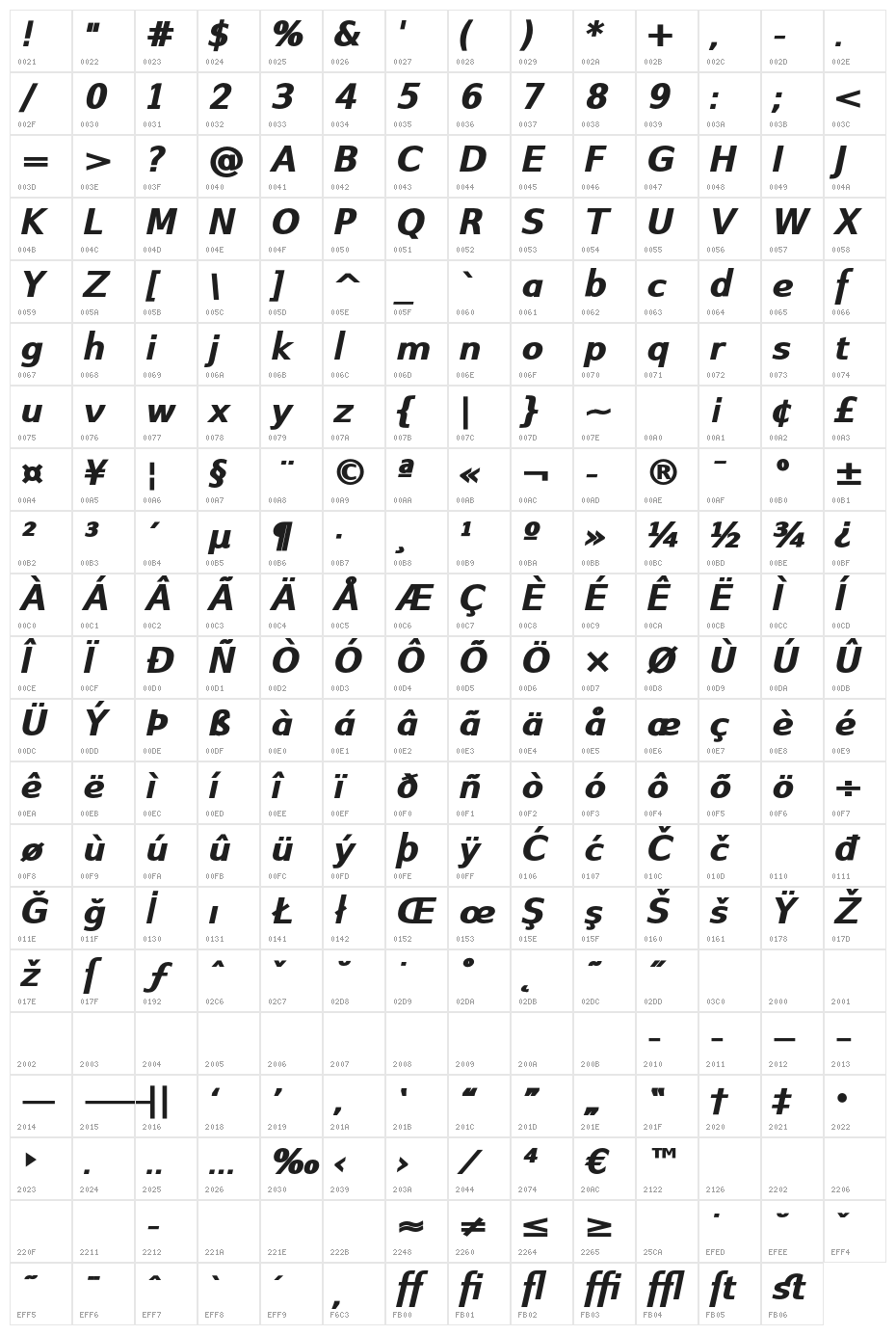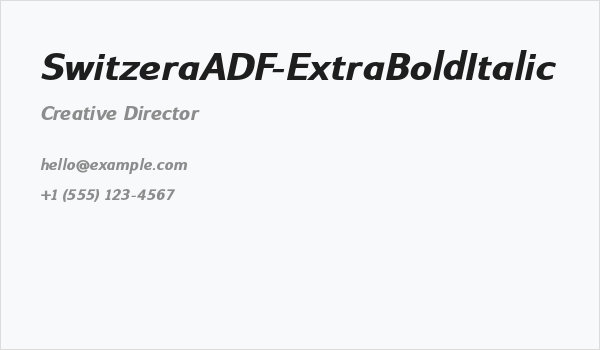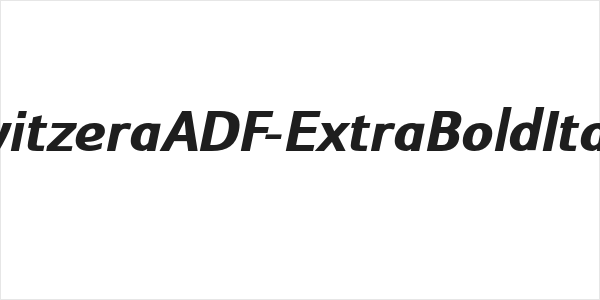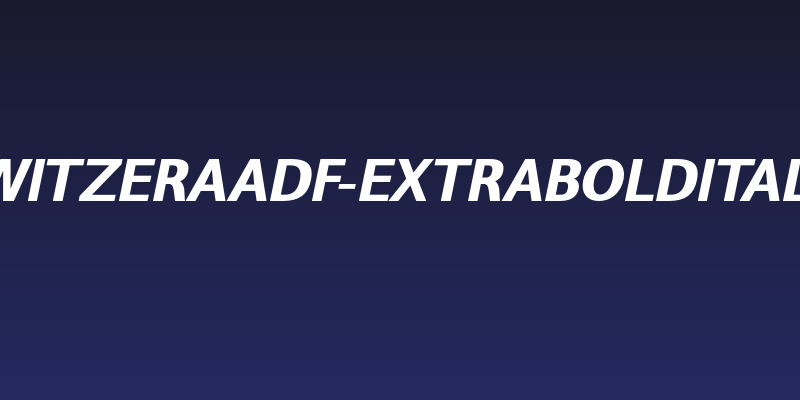
SwitzeraADF-ExtraBoldItalic Font
SwitzeraADF-ExtraBoldItalic Description
This font exhibits a bold and dynamic presence with its extra bold weight and italic style. The characters are sharply defined with a slight forward slant, giving a sense of movement and urgency. The uppercase letters are strong and commanding, while the lowercase letters maintain a consistent flow. The numerals are clear and robust, ensuring readability. Special characters are well-integrated, maintaining the font's cohesive appearance. The overall design is modern and professional, suitable for making a strong visual impact.
| Use Case | Headlines, Logos, Advertising |
| Proposed Projects | Ideal for branding, advertising, headlines, and any project requiring a strong visual impact. |